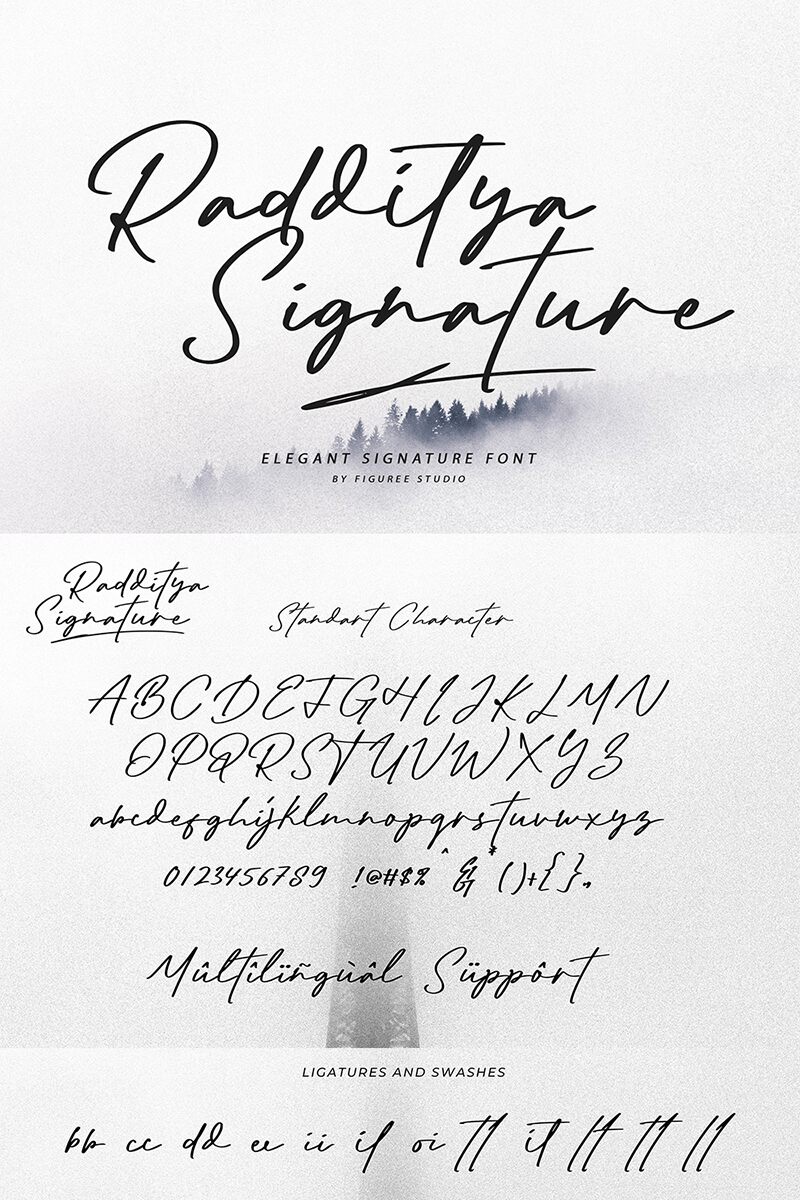
Radditya Signature
The Radditya Signature font is a beautifully crafted handwritten typeface from Figuree Studio that personifies chicness and character. Flowing lines and gentle curves of this type conjure personal autographs’ magic, being appropriate for any projects looking for an individual touch. The warmth emanated by the letters comes from their connection which seems uninterrupted.
Radditya Signature is visually strong in both digital and print media. This tasteful font can fit perfectly in wedding invitations, branding campaigns or any other creative project that wants to have a hint of distinction. Designers are invited to download this free font and discover how it can be used to tell stories visually without losing its approachability.